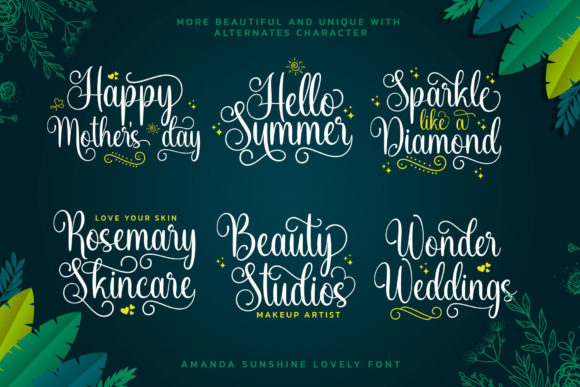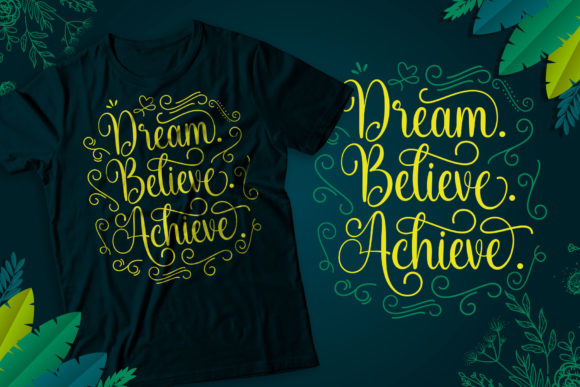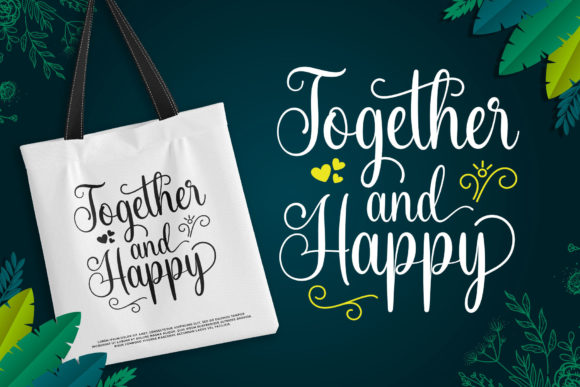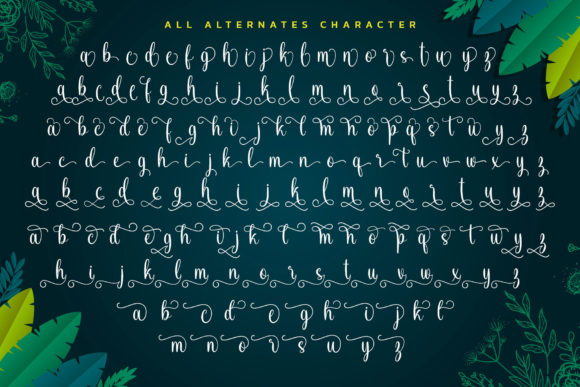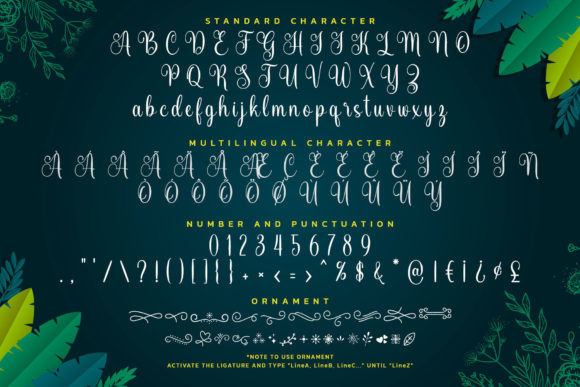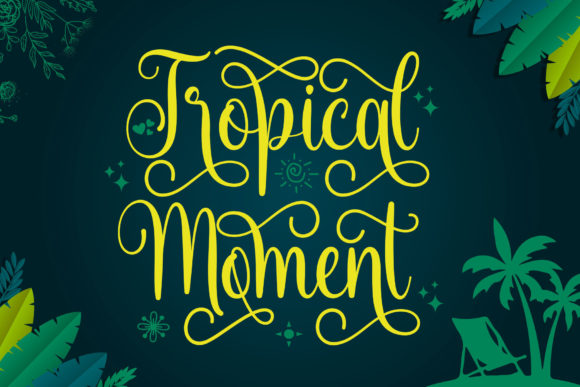
Discover the Elegance of Amanda Sunshine Font
Have you ever been in the middle of a design project, and suddenly, you’re stuck on finding the perfect font? I recall a recent experience where I was working on a wedding invitation design, and my client requested a font that was both elegant and unique. After hours of searching, I stumbled upon the Amanda Sunshine font, which became the perfect fit for the project. In this article, I’ll share my journey with this beautiful script font, its features, and how to make the most of it in your designs.
A Personal Review of Amanda Sunshine Font
Amanda Sunshine is a stunning script font that has become a favorite in my design toolkit. Here’s what I love about it:
• ✨ Elegant and modern look that’s perfect for high-end designs
• ✅ Unique character set that adds a touch of sophistication to any project
• 💫 PUA encoded, making it easy to access all glyphs and swashes
• 🎨 Highly versatile, suitable for logos, branding, invitations, stationery, wedding designs, and more
While Amanda Sunshine is an excellent font, it’s not without its quirks. Here are a few things to keep in mind:
• 🤔 Some users may find the font a bit challenging to read in small sizes, so it’s best used for headlines or titles.
• ⚠️ As with any script font, it may not be suitable for body text or lengthy content.
The Story Behind Amanda Sunshine Font
The Amanda Sunshine font was designed with the intention of creating a beautiful, elegant script font that would add a touch of sophistication to any design project. The designer aimed to create a font that was both modern and unique, with a character set that would make it stand out from other script fonts. While the real story behind the font’s creation may be unknown, it’s clear that the designer succeeded in creating a stunning font that has captured the hearts of many designers.
What is the Amanda Sunshine font best used for? The Amanda Sunshine font is best used for high-end designs, such as logos, branding, invitations, stationery, wedding designs, and more.
Is Amanda Sunshine font PUA encoded? Yes, Amanda Sunshine font is PUA encoded, making it easy to access all glyphs and swashes.
Is Amanda Sunshine font suitable for body text? No, Amanda Sunshine font is not suitable for body text, as it’s best used for headlines or titles.